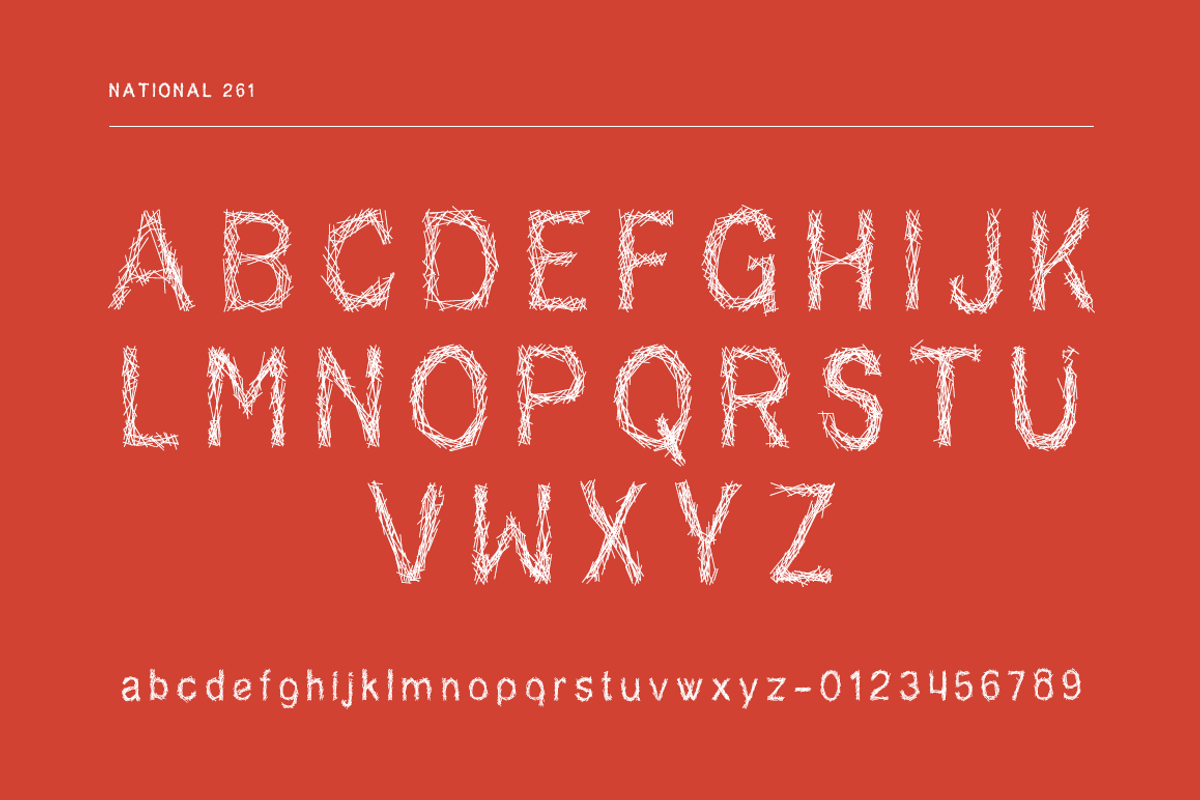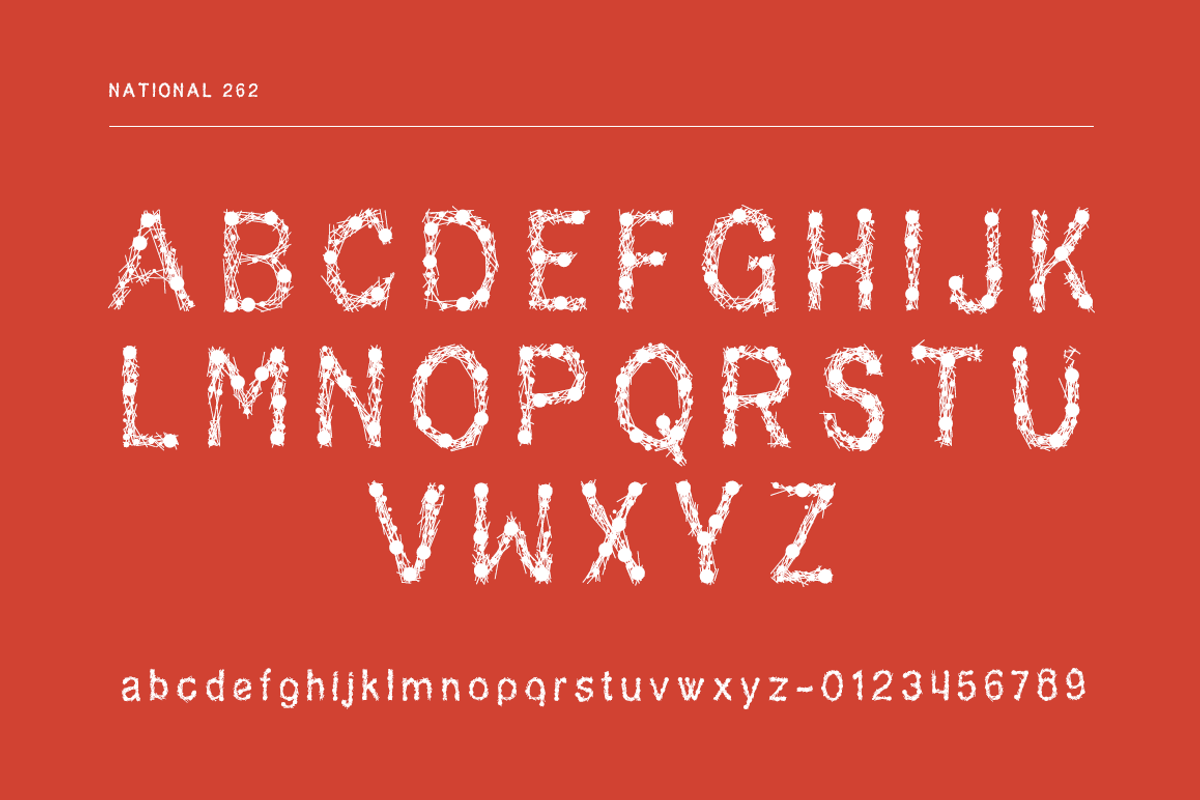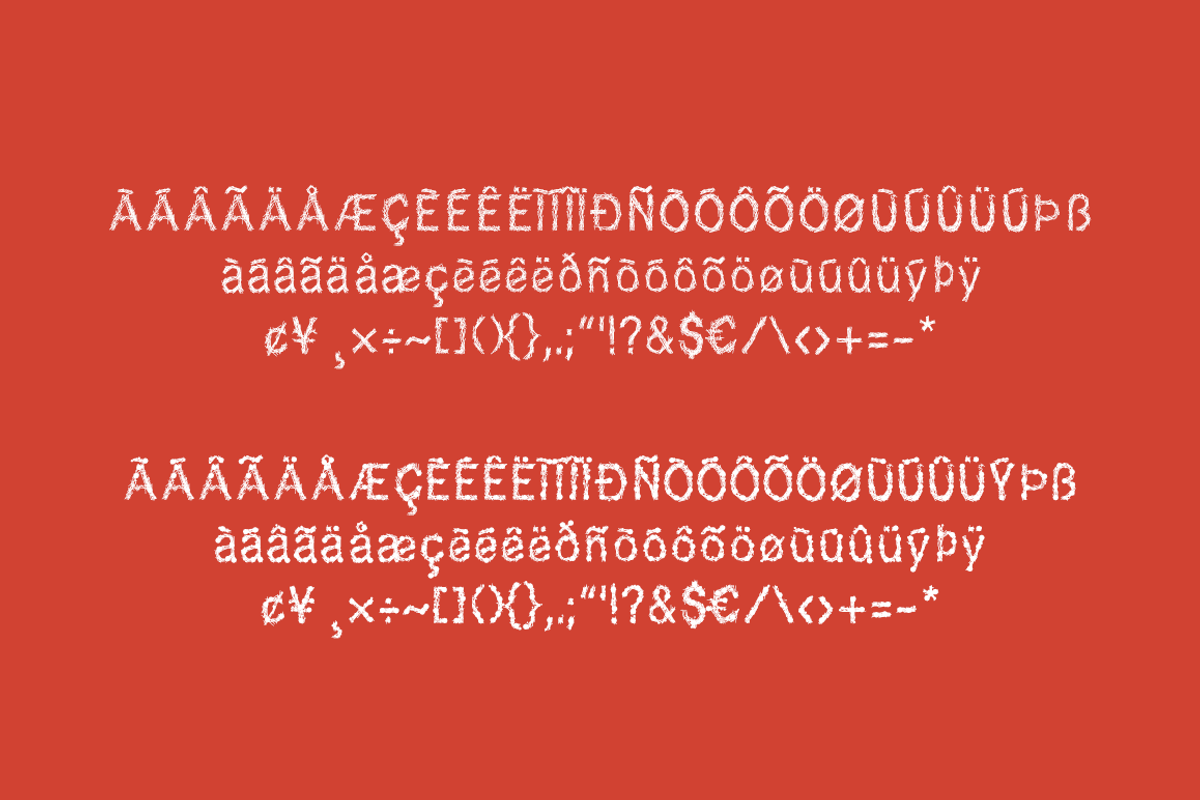
National 261/262 - fonts - 50% OFF !
National 261/262 - fonts - 50% OFF ! by David is Creative is a font selected for branding, posters, packaging, typography.
- Each characters have a different lines and dots patterns.
- NATIONAL261 Medium
- NATIONAL262 Medium
Why National 261/262 - fonts - 50% OFF ! is worth a look
National 261/262 - fonts - 50% OFF ! by David is Creative fits naturally into Branding, posters, packaging, typography.